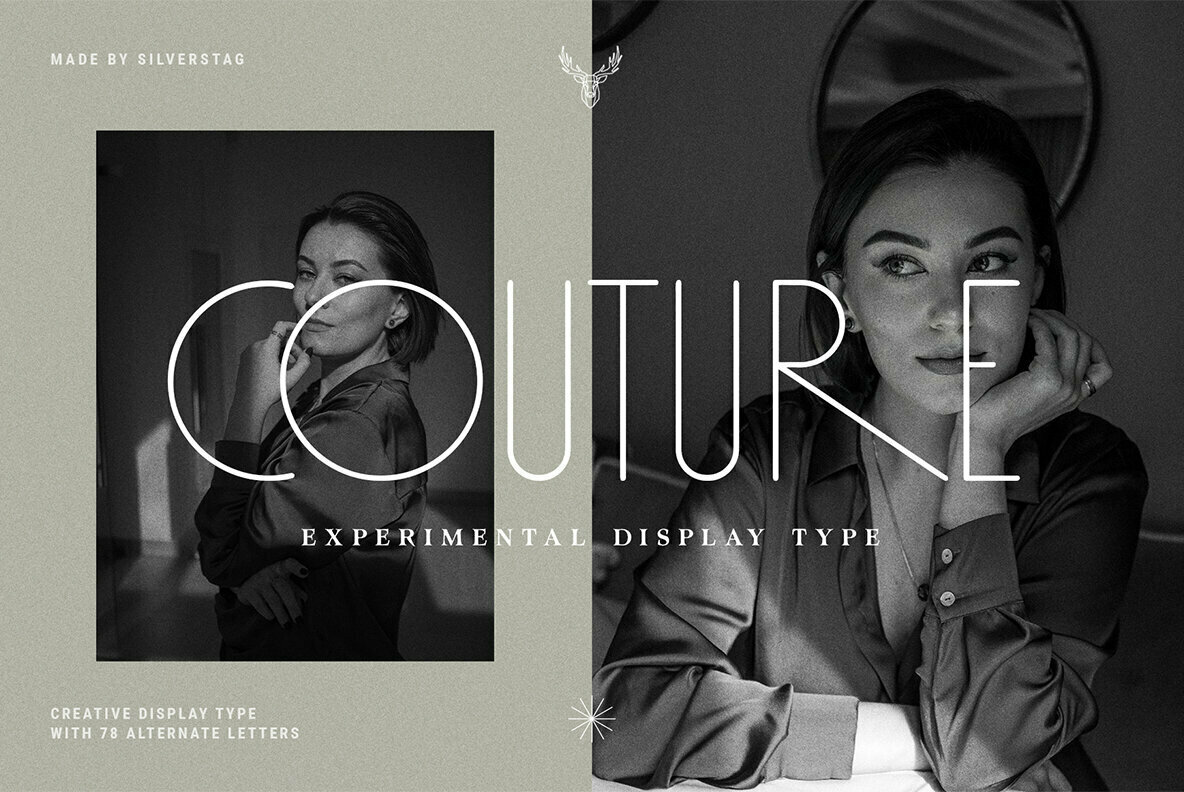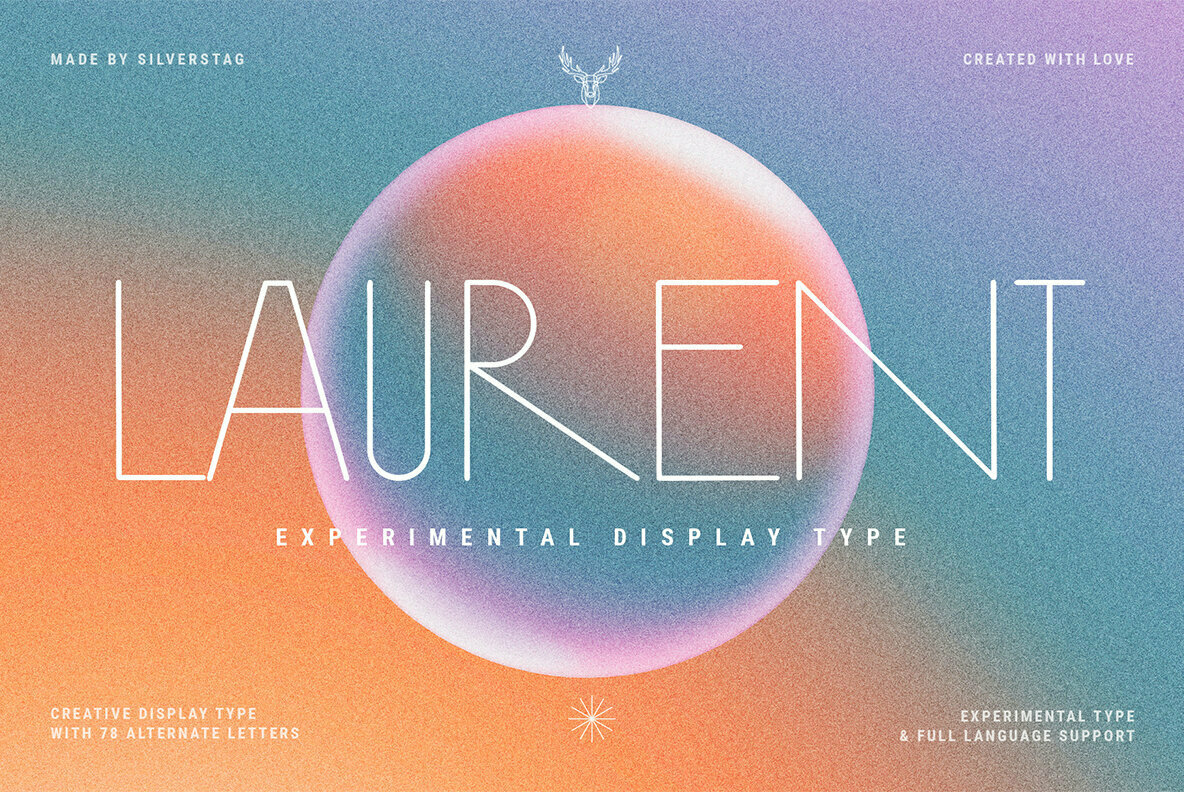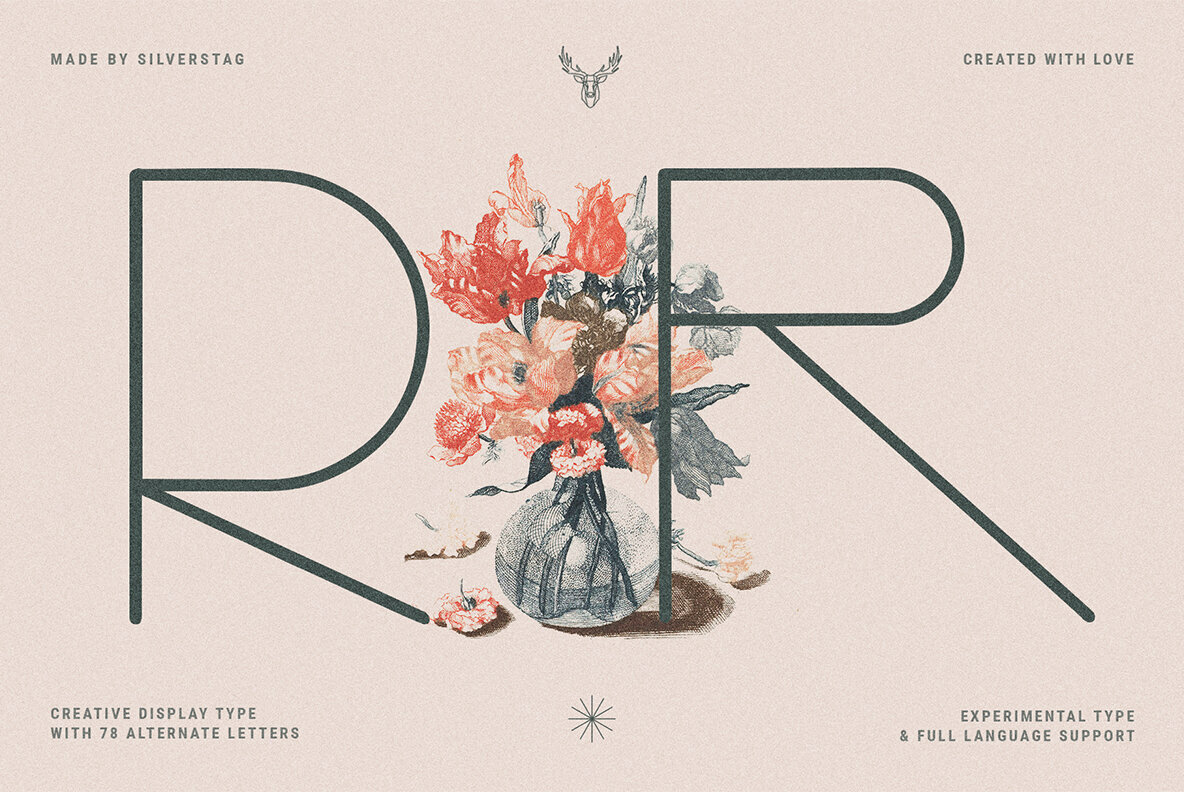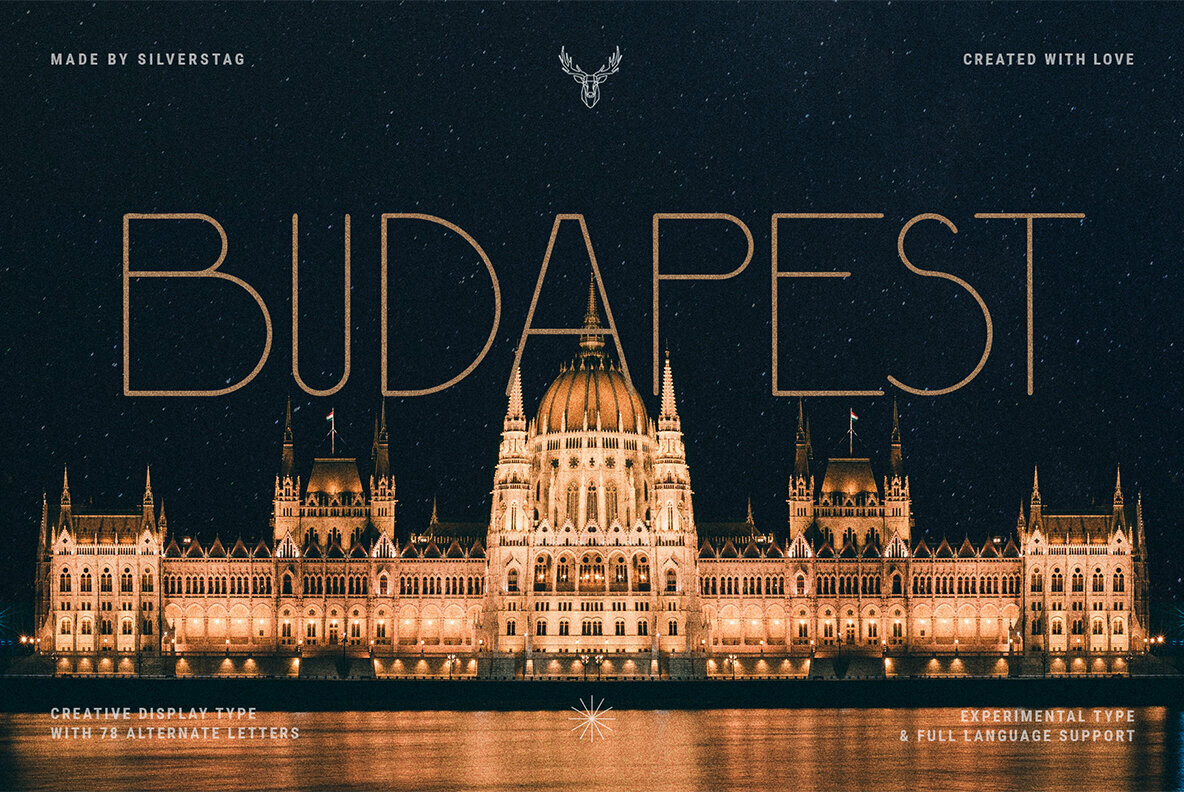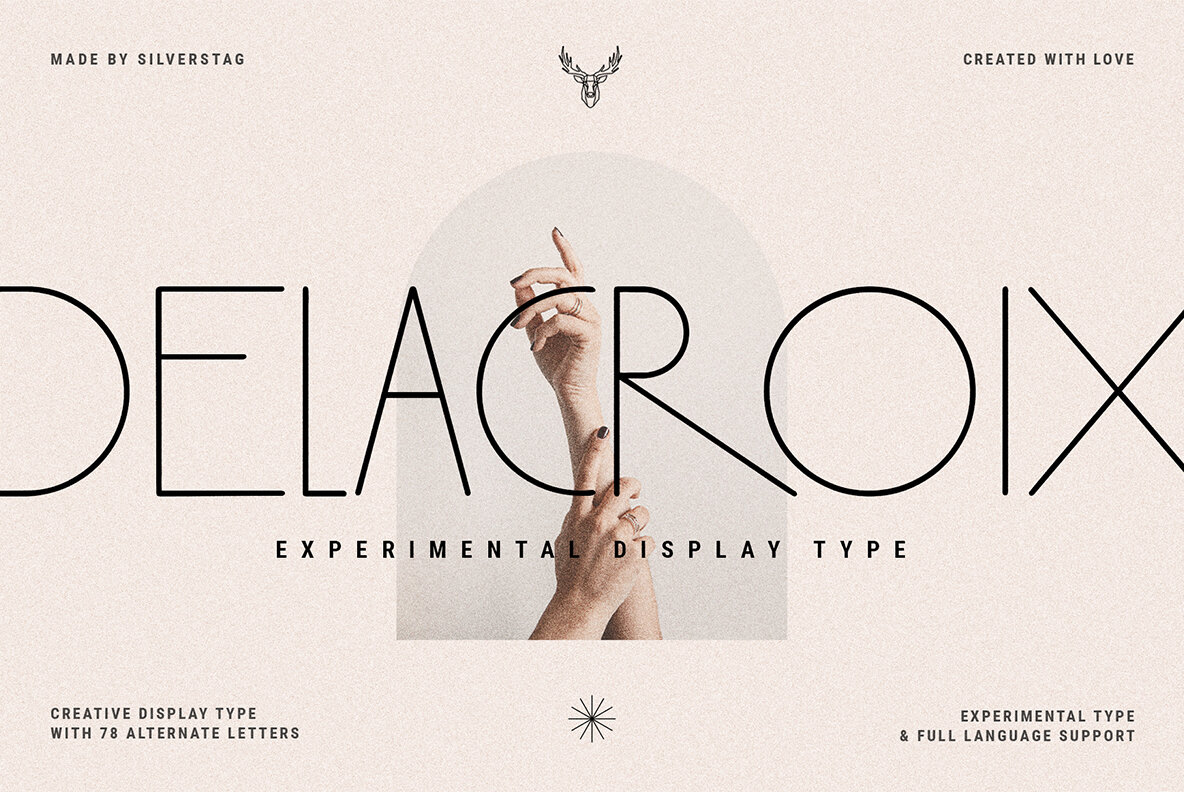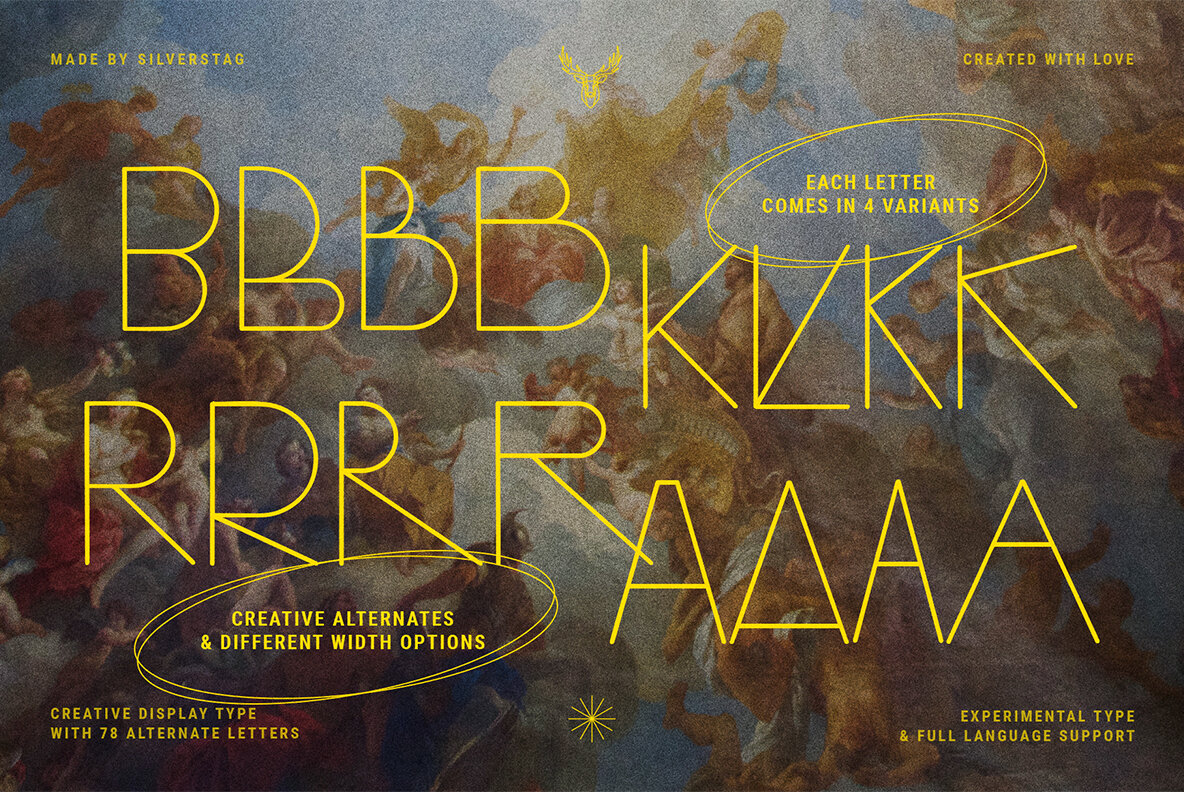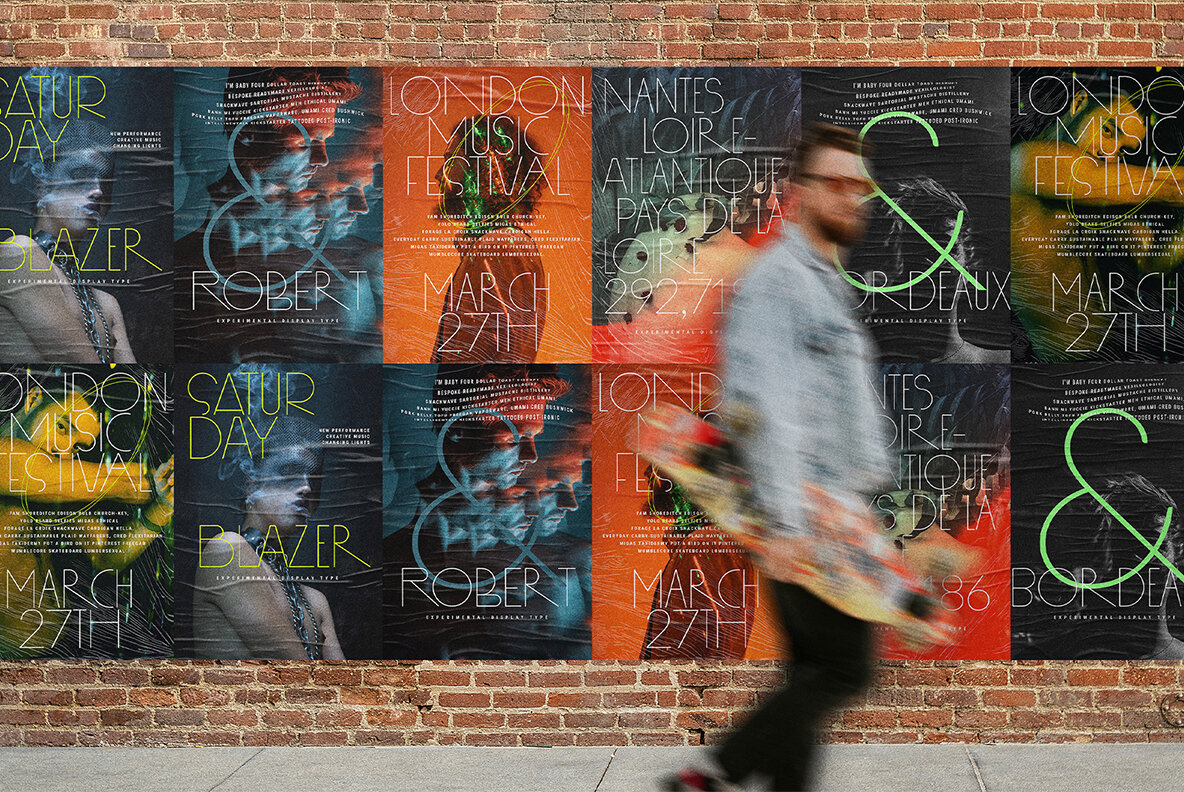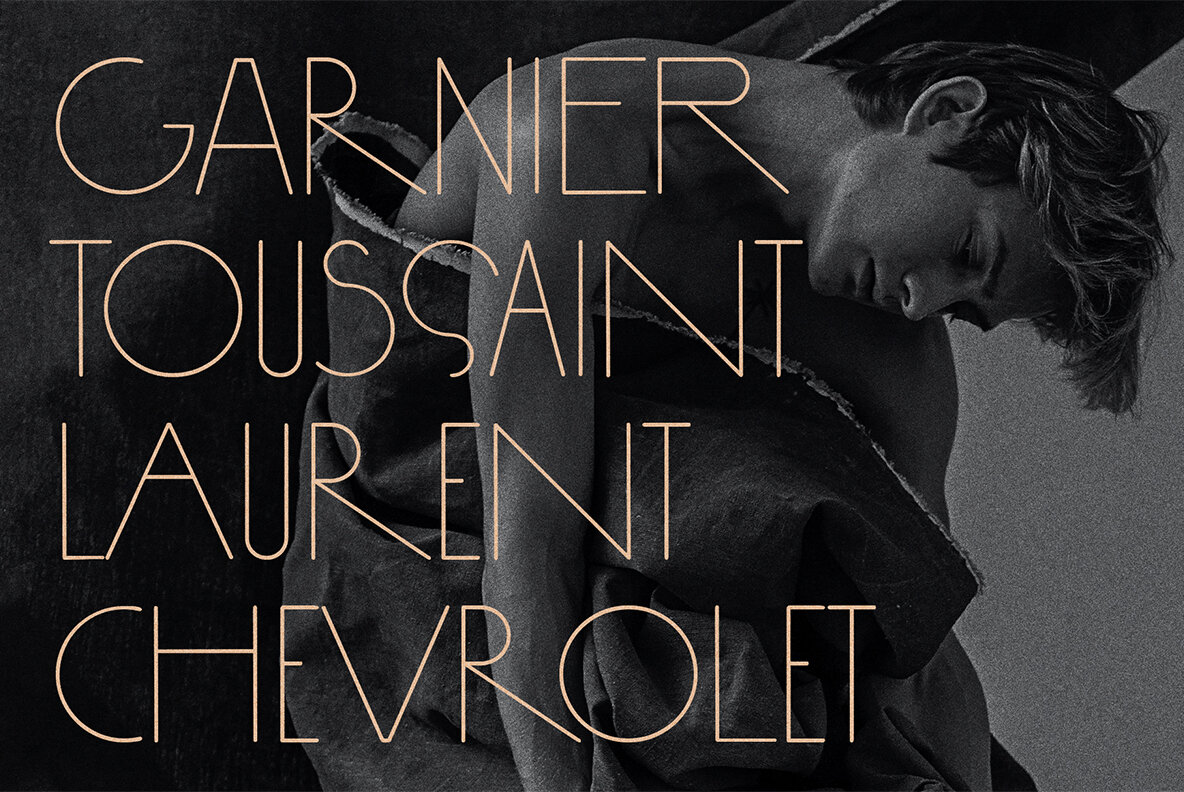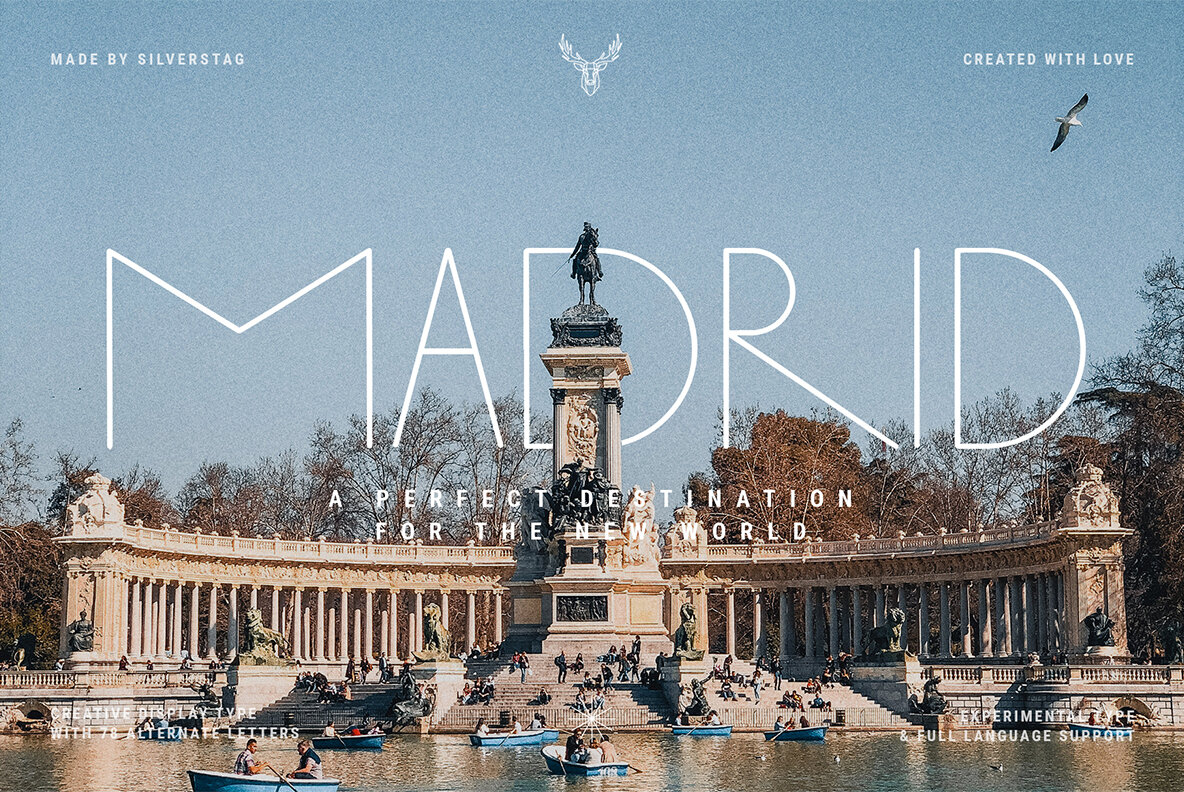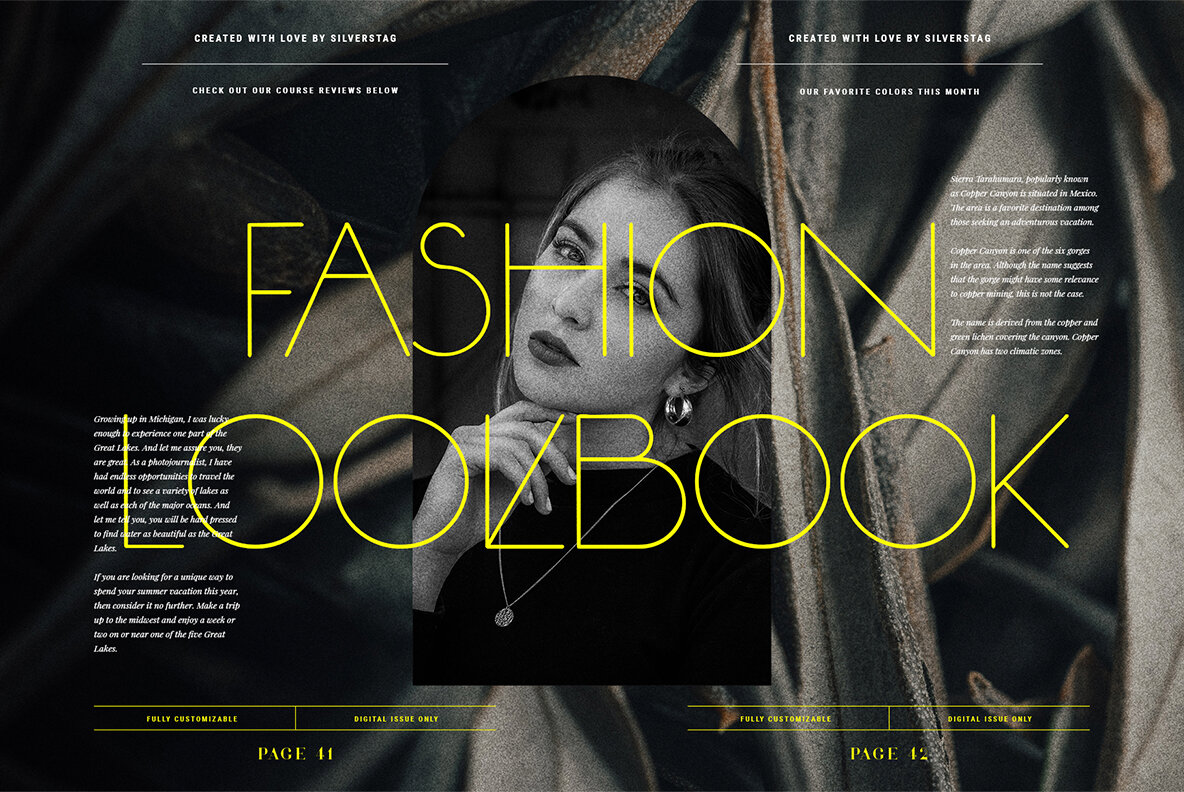
Aurore Font
Aurore is my new experimental display type that was inspired by art deco, a style of visual arts, architecture and design that first appeared in France. It is a geometric stylish font full of alternate letters - 3 different alternate letters for the whole alphabet, counting in total 104 capital letters.
It also includes full language support, punctuation, numerals and detailed instructions how to use alternate letters most of the apps on your computer, as well as in Canva.